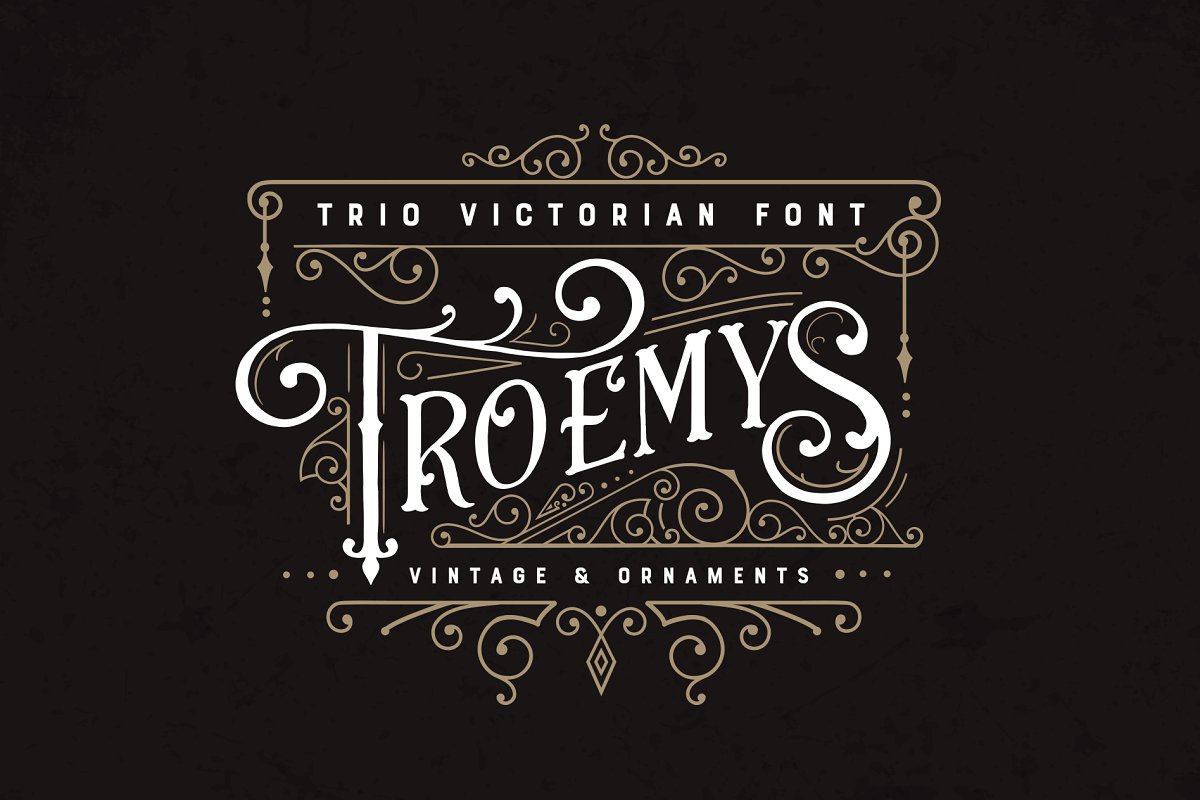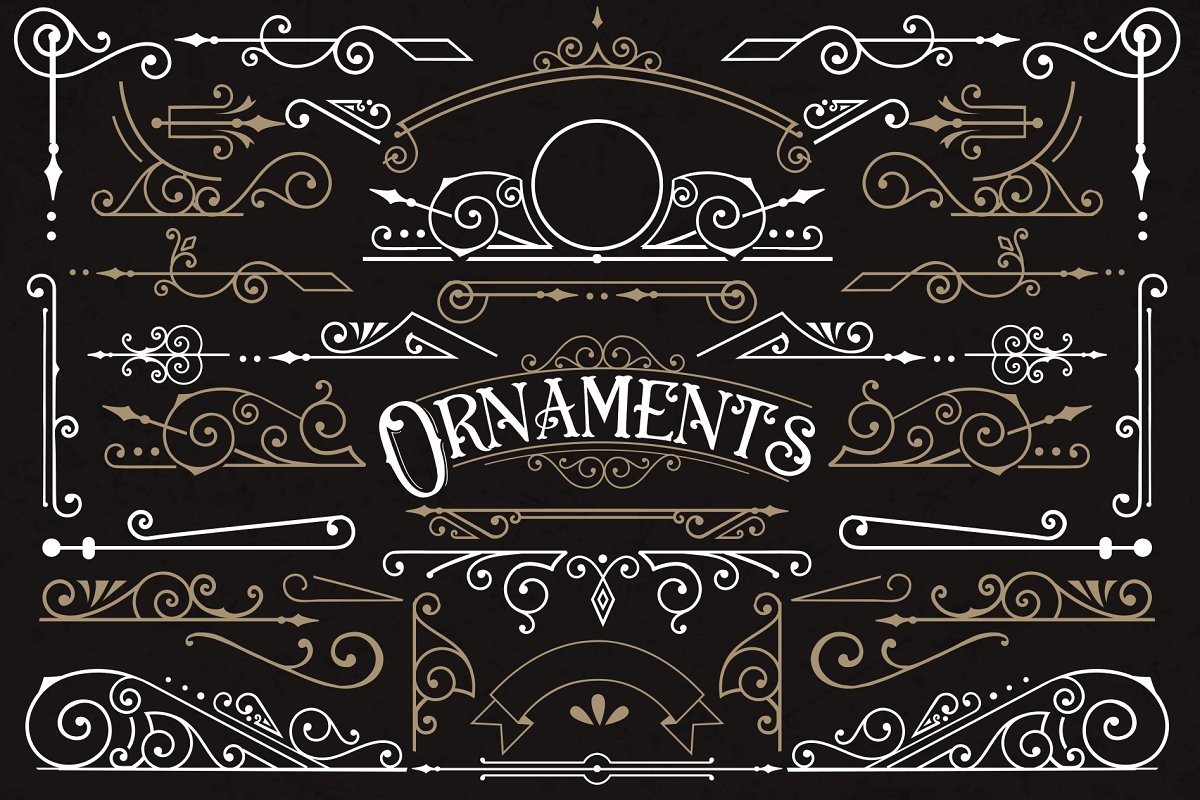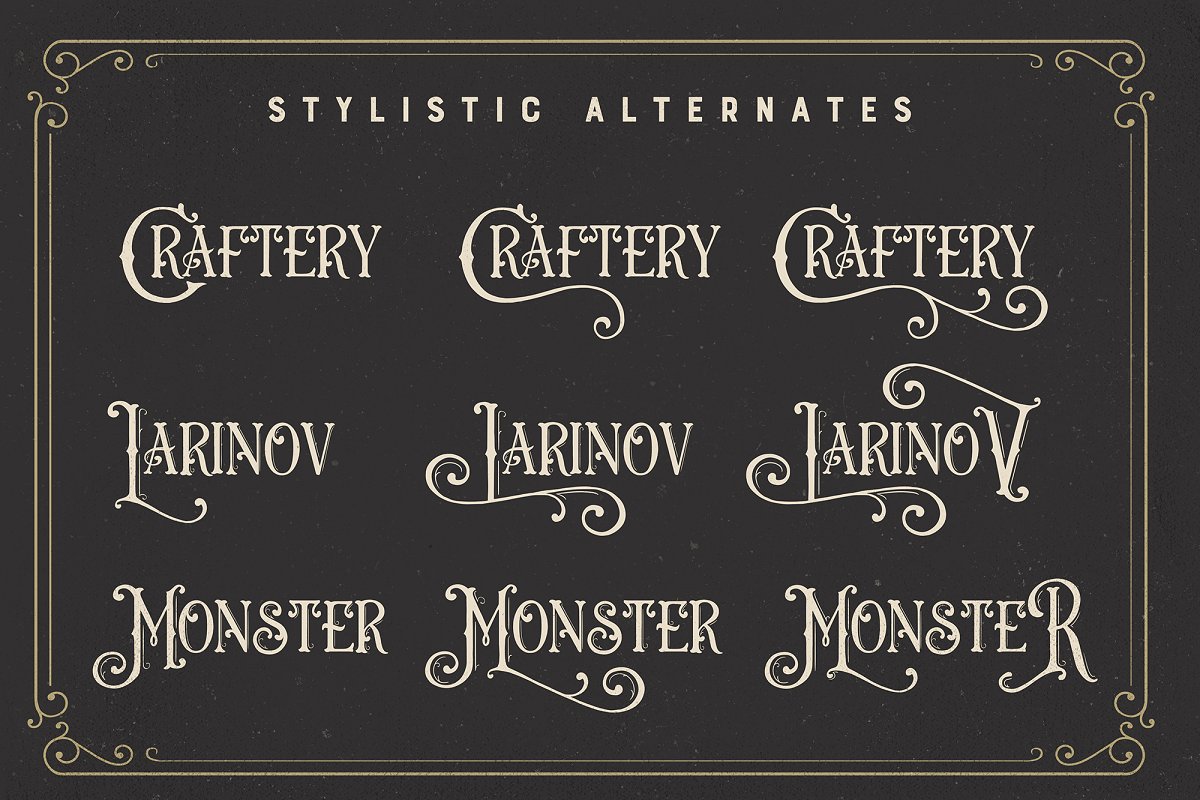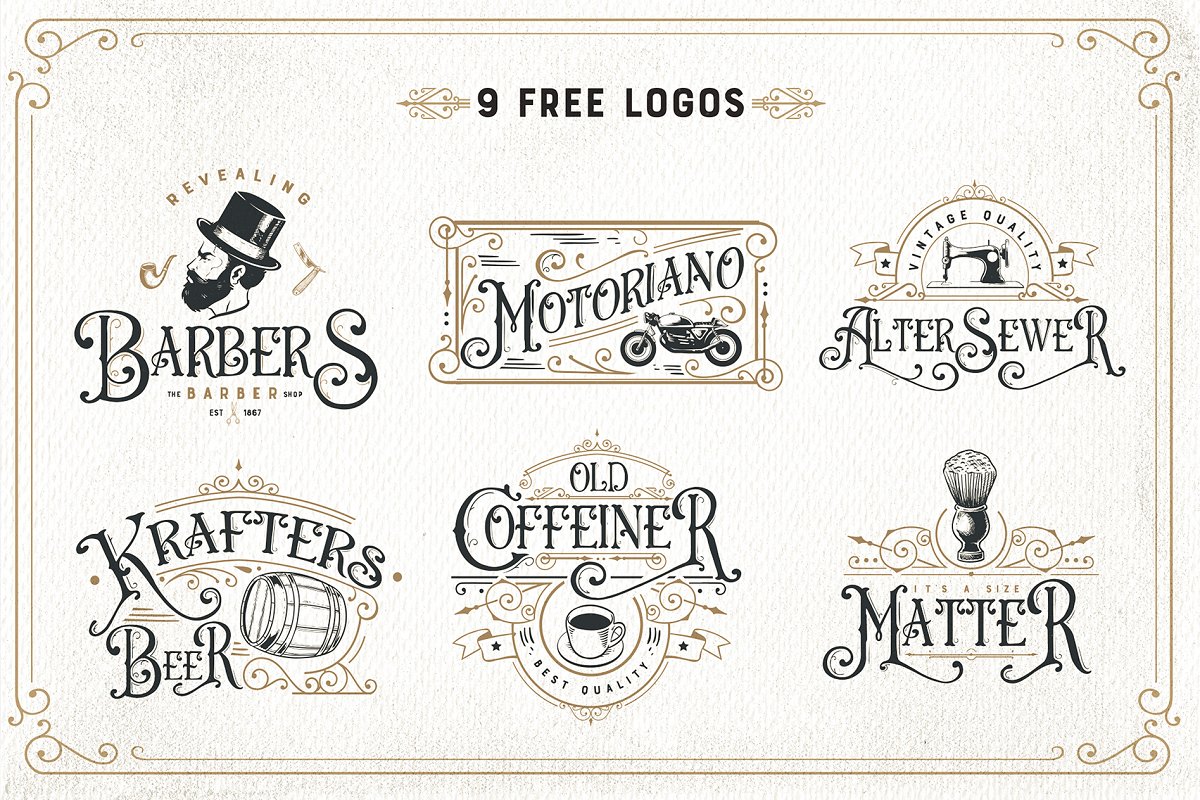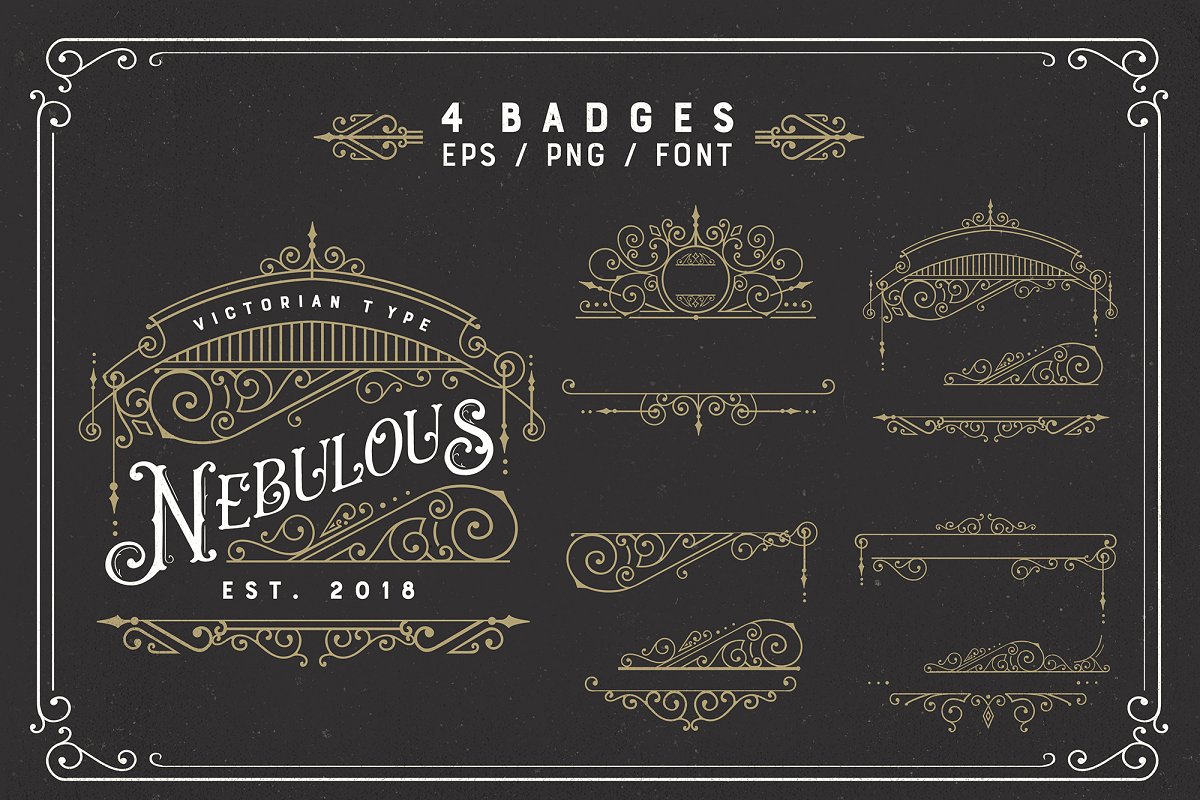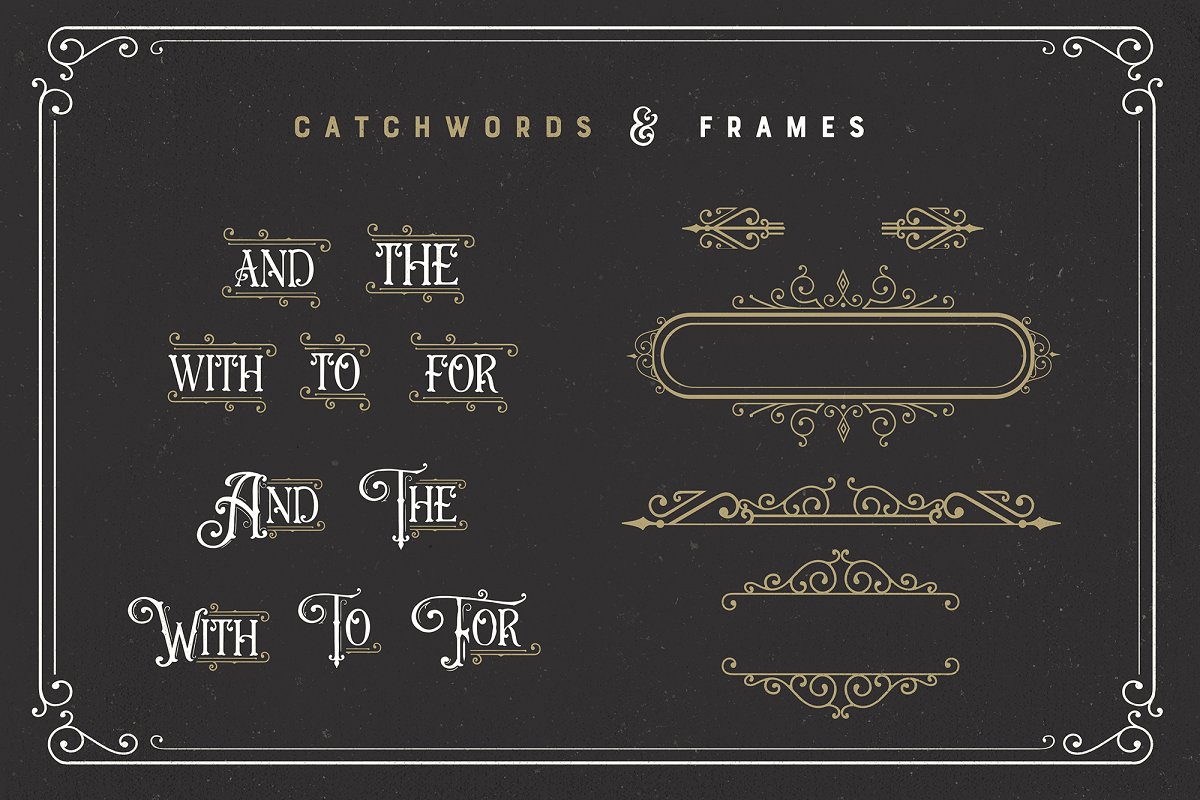
About the Troemys Font Trio and extras
Troemys is a trio font with a vintage, Victorian feel with lots of decorative elements, both in font format and Vector and PNG, 6 logos are also included, with editable text in layered PSD and EPS format, For the Ornaments in TTF and OTF format, please check all of them by typing the Caps, Small Caps and also numerals , INCLUDED :Troemys Regular ( OTF & TTF Format )Troemys Decorated ( OTF & TTF Format )Troemys Ornaments ( OTF & TTF Format ) + Eps and PNG FormatOrnaments (Frames, Badges, Clipart and Catchwords) in Eps and PNG format tooLogos in Layered PSD – EDITABLE text and EPSTo access all OpenType Stylistic alternates, you need a program that supports OpenType features such as Adobe Illustrator, Adobe Photoshop, CorelDraw and Microsoft word